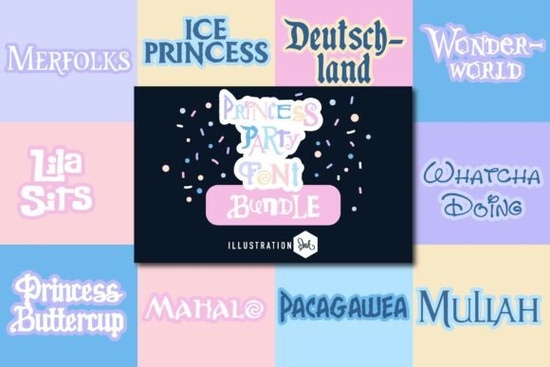
What’s actually inside the bundle?
The collection includes fonts like Ice Princess, which brings cool, delicate elegance great for winter-themed parties or frosty fantasy branding. Then there’s Merfolks, with soft curves and underwater playfulness, perfect for mermaid birthdays or ocean-inspired stationery. Princess Buttercup leans into classic storybook warmth ideal for labels, greeting cards, or classroom printables that need gentle authority and charm.
Other names in the set include Starlight Serenade, Royal Script, Enchanted Quill, Glitter Glimmer, Moonbeam Cursive, and Velvet Crown each named to reflect its mood and visual rhythm. None of them feel overly ornate or hard to read at small sizes, and most include alternate characters and ligatures for added flexibility.
Who uses this kind of font and where does it work best?
This isn’t just for “princess” themes in the narrowest sense. Teachers use fonts like these for classroom signs, reward certificates, and reading corner banners especially when they want something softer than bold sans-serifs but more legible than ultra-fancy calligraphy. Print-on-demand sellers find them useful for kids’ apparel, tote bags, and wall art aimed at imaginative play. Small businesses selling handmade toys or organic baby products often choose whimsical script fonts to support a gentle, story-driven brand voice.
Because the Princess Party Font bundle includes true handwriting-style scripts as well as slightly bolder, more structured options, it bridges several needs: event stationery (think cupcake toppers, photo booth props), digital content (Instagram stories, Pinterest pins), and even simple embroidery digitizing when paired with clean vector outlines.
How does it compare to other script fonts on Creative Fabrica?
Unlike some all-caps decorative fonts or tightly spaced monoline scripts, this set was built with practicality in mind. The spacing is generous, the x-height is comfortable, and many of the fonts scale well from 12 pt body text up to large-format vinyl cuts. If you’ve tried authentic calligraphy fonts before and found them too fragile for everyday use, you might appreciate how these balance flourish with function. For classroom projects, they pair nicely with simpler sans-serif companions similar to how teachers often mix classroom-friendly script fonts with clean display types.
It’s also more cohesive than grabbing single fonts from different designers. All ten share a consistent baseline, weight range, and stylistic logic so switching between “Merfolks” for a header and “Royal Script” for a subheading feels intentional, not jarring.
- Look beyond princesses: “Ice Princess” works beautifully for spa branding; “Glitter Glimmer” adds sparkle to holiday cards; “Velvet Crown” fits luxury pet accessories or boutique skincare lines.